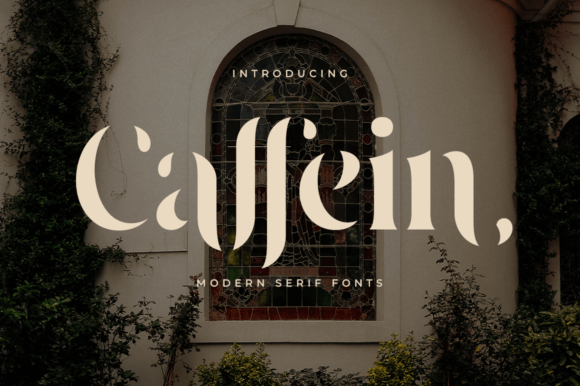
The Perfect Cup of Inspiration: Unveiling the Caffein Font
Have you ever been stuck on a design project, pouring over lines and shapes, searching for that elusive spark of creativity? I know I have. Sometimes, all it takes is a fresh perspective to breathe new life into our work. That’s exactly what the Caffein Font offers – a modern classic serif typeface with an individual approach in every single letter, designed to elevate your designs to the next level.
Whether you’re working on a fashion brand, a magazine, or a wedding invitation, the Caffein Font is the perfect companion to bring your vision to life. Its versatility and unique character make it an invaluable asset for designers looking to add a touch of sophistication and elegance to their projects. With its PUA encoding, accessing all the glyphs and swashes is a breeze, allowing you to unleash your full creative potential.
Caffein Font Key Features
- Unique Characteristics: Caffein Font features a bold, energetic design with a unique blend of geometric and organic elements, making it perfect for headlines and titles.
Caffein Font Review
As a designer, I was excited to dive into the Caffein Font, and here’s my honest take on it.
- Unique and modern aesthetic: The Caffein Font has a sleek, contemporary look that can add a touch of sophistication to any design.
- Wide range of languages supported: This font is suitable for multilingual designs, making it a great choice for projects that require text in various languages.
- Excellent for digital displays: The font is well-suited for digital screens, ensuring readability and clarity in digital environments.
- Limited expressiveness: The font’s modern style can make it feel somewhat sterile or lacking in personality, which might not be suitable for designs that require a lot of emotional depth.
- Not ideal for body text: While the font works well for headings and titles, it might not be the best choice for body text due to its modern feel and relatively large x-height.
The Caffein Font is a solid choice for designers who need a modern, versatile font for their projects. While it may have some limitations, its unique aesthetic and wide range of supported languages make it a great addition to any design toolkit.
The Caffein Font is ideal for:
- Designing coffee shop menus and branding materials.
- Creating modern and edgy typography for advertising and marketing campaigns.
- Adding a touch of elegance and sophistication to wedding invitations and stationery.
Alternatives to Caffein Font